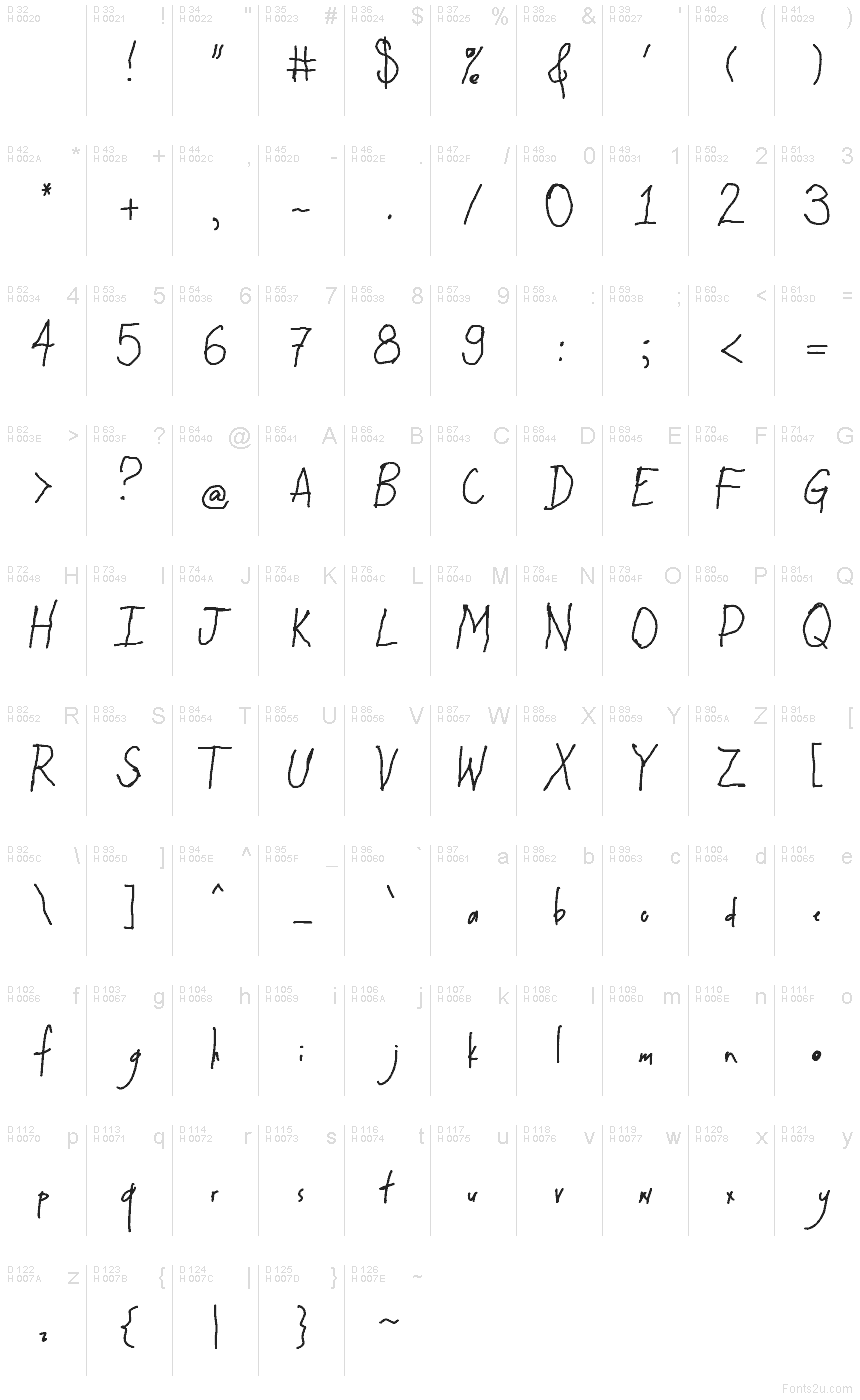
Arkinthor Hands Heavy
Arkinthor Hands Heavy font by The Branded Quotes is an expressive handwritten font. With an organic flow and relaxed modern style, this light font gives a genuine personal touch for creative projects that require a human feel. The edges are imperfect, mimicking the strokes of real ink from a pen or even a marker.